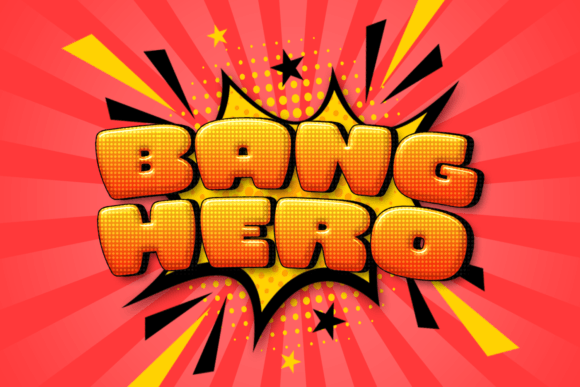
Unleash Your Creativity with the Bang Hero Font
There’s nothing quite like the rush of excitement you feel when a design project comes together, and your typography is the star of the show. The colors are perfect, the layout is on point, and the font – oh, the font – is the icing on the cake. It’s in these moments that you know you’ve made a real impact, and that’s exactly what the Bang Hero Font is designed to do.
This fun comic-style display font is the perfect choice for designers who want to add a playful touch to their projects. With its chunky characters, the Bang Hero Font is sure to impress, and its versatility makes it a valuable asset for any designer looking to create outstanding typography that really makes a statement. Whether you’re working on a comic book, a children’s book, or a marketing campaign, the Bang Hero Font is the perfect tool to help you unleash your creativity and make a real impact.
Bang Hero Font Key Features
- Unique Characteristics: Bang Hero Font features a bold and playful design, with a mix of modern and traditional elements, making it perfect for use in digital and print media.
- Font Style: The font is available in a single style, which is a bold sans-serif font, ideal for headings, titles, and other display text.
Bang Hero Font Review
As a designer, I’ve had the chance to work with the Bang Hero font, and I must say, it’s a unique and bold choice. ✨ I appreciate its energetic and playful vibe, which makes it perfect for titles, headings, and other prominent text elements. The font’s geometric shapes and rounded edges give it a modern and edgy feel.
One of the standout features of Bang Hero is its versatility. It comes in a range of weights, from light to bold, which makes it suitable for various design projects. I’ve used it for logos, social media graphics, and even website headers with great results. ✨ The font’s legibility is also impressive, making it easy to read, even at smaller font sizes.
However, there are some limitations to consider. ⚠️ One of the main issues is the font’s limited character set, which may not be suitable for languages that require a wide range of special characters. Additionally, the font’s bold weights can sometimes look a bit too aggressive, which may not be suitable for all design projects.
- Unique and bold design
- Geometric shapes and rounded edges
- Modern and edgy feel
- Range of weights (light to bold)
- Good legibility
Alternatives to Bang Hero Font
Great Vibes Font is a modern, elegant script font that is perfect for creating a luxurious and sophisticated look. It is ideal for use in branding, logos, and advertising materials where a high-end feel is desired. In comparison to Bang Hero Font, Great Vibes Font has a more refined and polished appearance, making it suitable for a wider range of design applications.
Pacifico Font is a beautiful, cursive font that is reminiscent of the classic fonts from the 1950s. It is perfect for use in designs that require a touch of nostalgia and sophistication. Compared to Bang Hero Font, Pacifico Font has a more relaxed and casual feel, making it suitable for use in designs that require a friendly and approachable tone.
Q: Are there any font variants or styles available for the Bang Hero Font?
Yes, the Bang Hero Font is available in several variants, including bold, italic, and bold italic styles. These variants can be used to add visual interest and emphasis to your designs. Additionally, some font editors may also offer custom font variants or modifications, but these are not officially supported by the font’s creators.